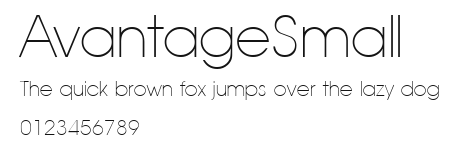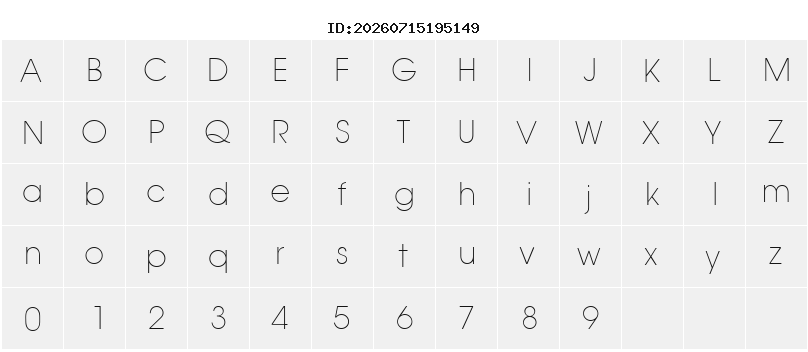
AvantageSmall Preview
• Font Name: AvantageSmall
• Font ID: Altsys Fontographer 4.0 AvantageSmall Normal
• Full Font Name: AvantageSmall Normal
• Version: Altsys Fontographer 4.0 12.7.1993
• PostScript Name: AvantageSmallNormal
• Character Count: 208
About AvantageSmall.ttf
AvantageSmall.ttf is a modern, elegant sans-serif font designed for ultimate readability and visual harmony. Perfect for branding, headlines, web design, and print materials.